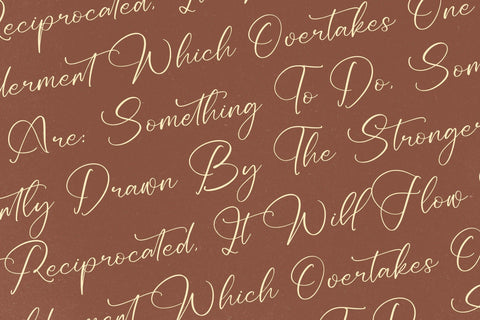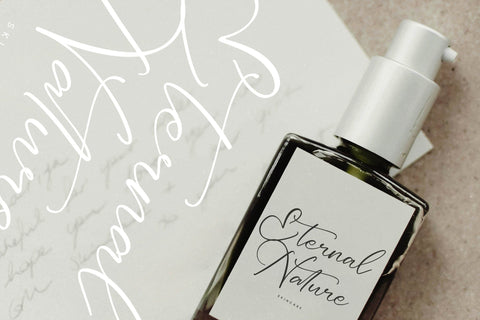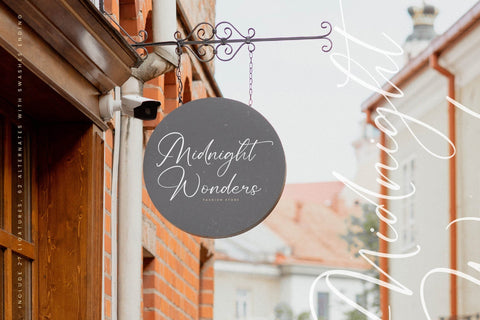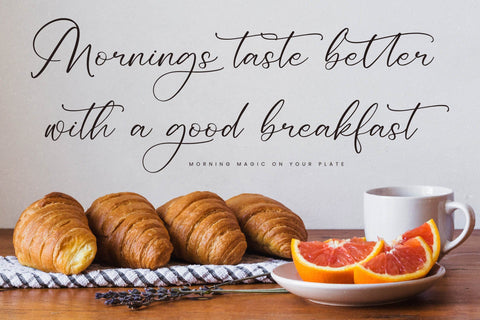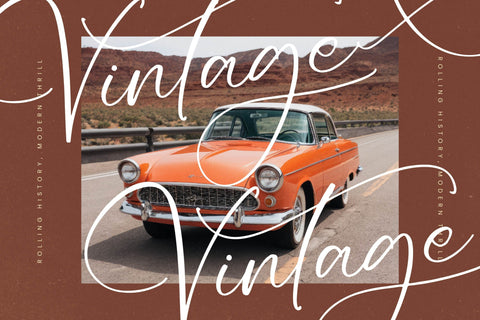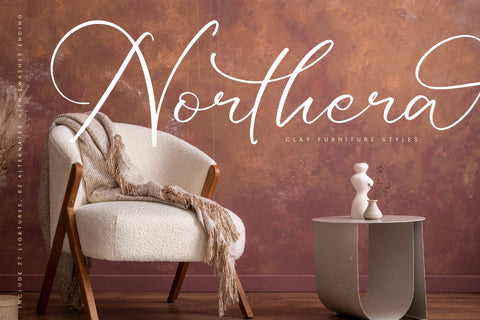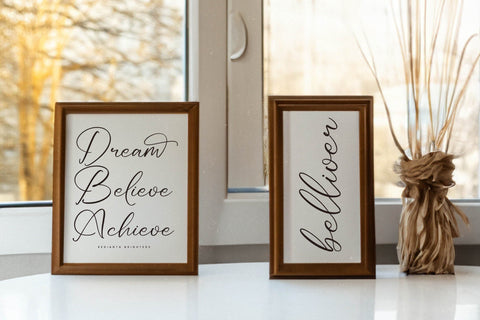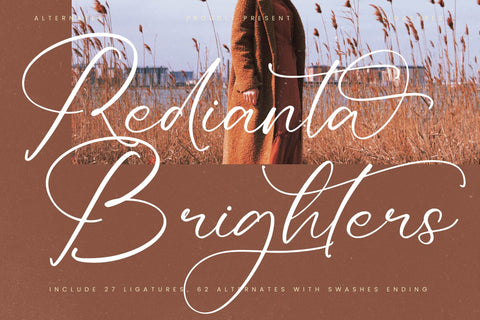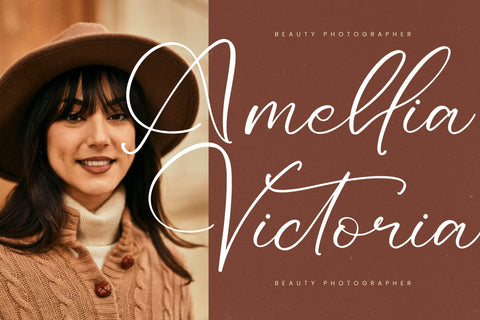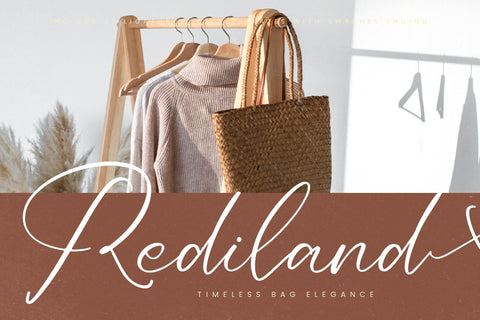
Redianta Brighters - Beauty Calligraphy Font
Redianta Brighters - Beauty Calligraphy Font , from Letterena, is a Luxury Script font, suitable for any projects such as: logos, branding projects, homeware designs, product packaging, mugs, quotes, posters, shopping bags, t-shirts, book covers, name card, invitation cards, greeting cards, label, photography, watermark, special events, and all your other luxury and beautiful projects that need a Luxury Script taste.